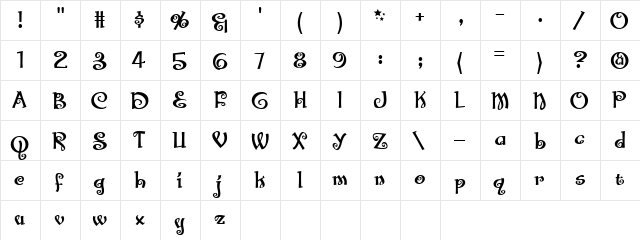
Santas Big Secret BB Regular
Design Context for Santas Big Secret BB Typeface
Santas Big Secret BB is a composed and adaptable typeface that performs quietly and consistently across a wide range of design contexts.